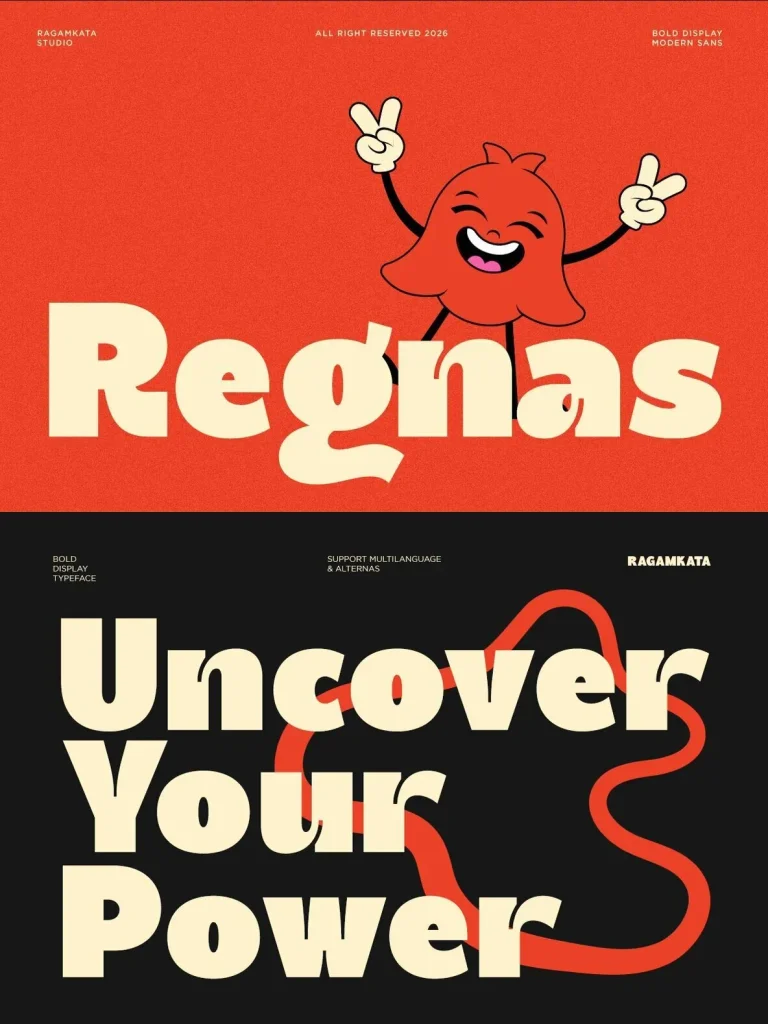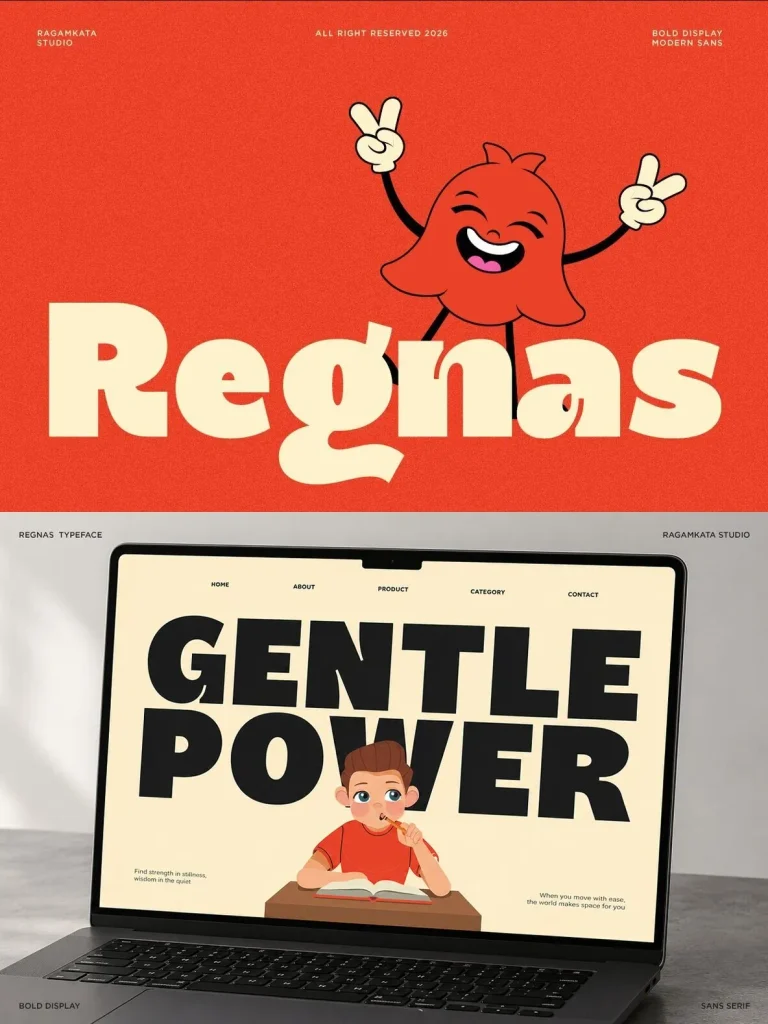
Regnas — Retro Charm in Bold Type
Regnas is a bold retro display font with energy, confidence, and nostalgic charm. Its chunky letterforms, soft rounded corners, and playful vintage aesthetic help it stand out while keeping strong readability across headlines, logos, posters, and branding.
Inspired by classic 70s graphics and modern retro design, Regnas suits packaging, editorial layouts, social media, merchandise, food branding, café identities, children’s products, music covers, advertising campaigns, and creative marketing materials. Its bold personality gives visual work a memorable feel, with warmth and character suited to both print and digital media.
Use Regnas for standout brand identities, eye-catching packaging, and expressive typography that calls for a timeless retro tone with a fresh contemporary twist.